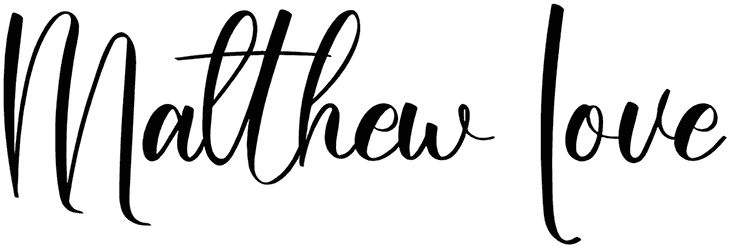
Matthew Love Font
Do you want to introduce a beautiful design for the words of your favorite design to you? This love font has a soft and casual face that would be an appealing pickup for various classic or modern layouts. With an almost full backup of characters, Matthew Love font will serve as a great choice for your designs, namely postcards, mugs, tattoos, and along with others.